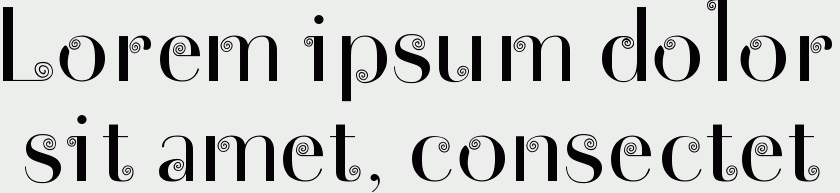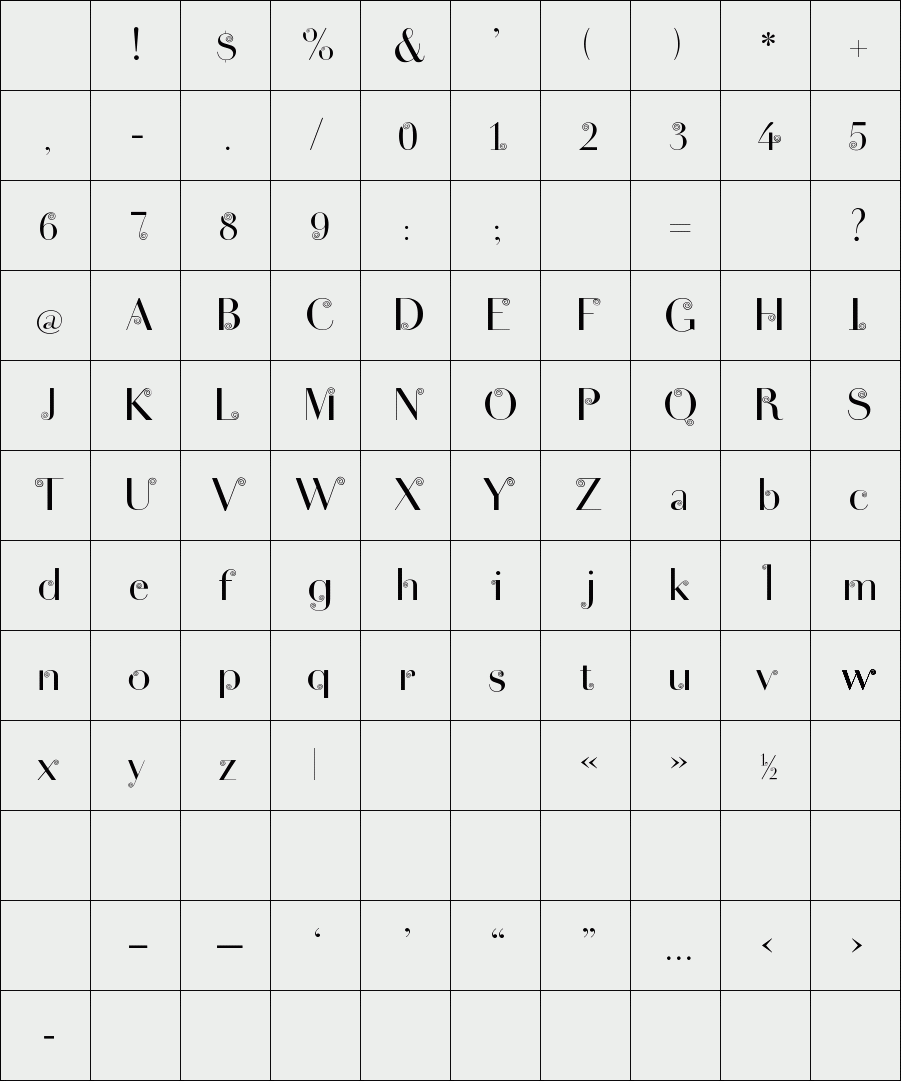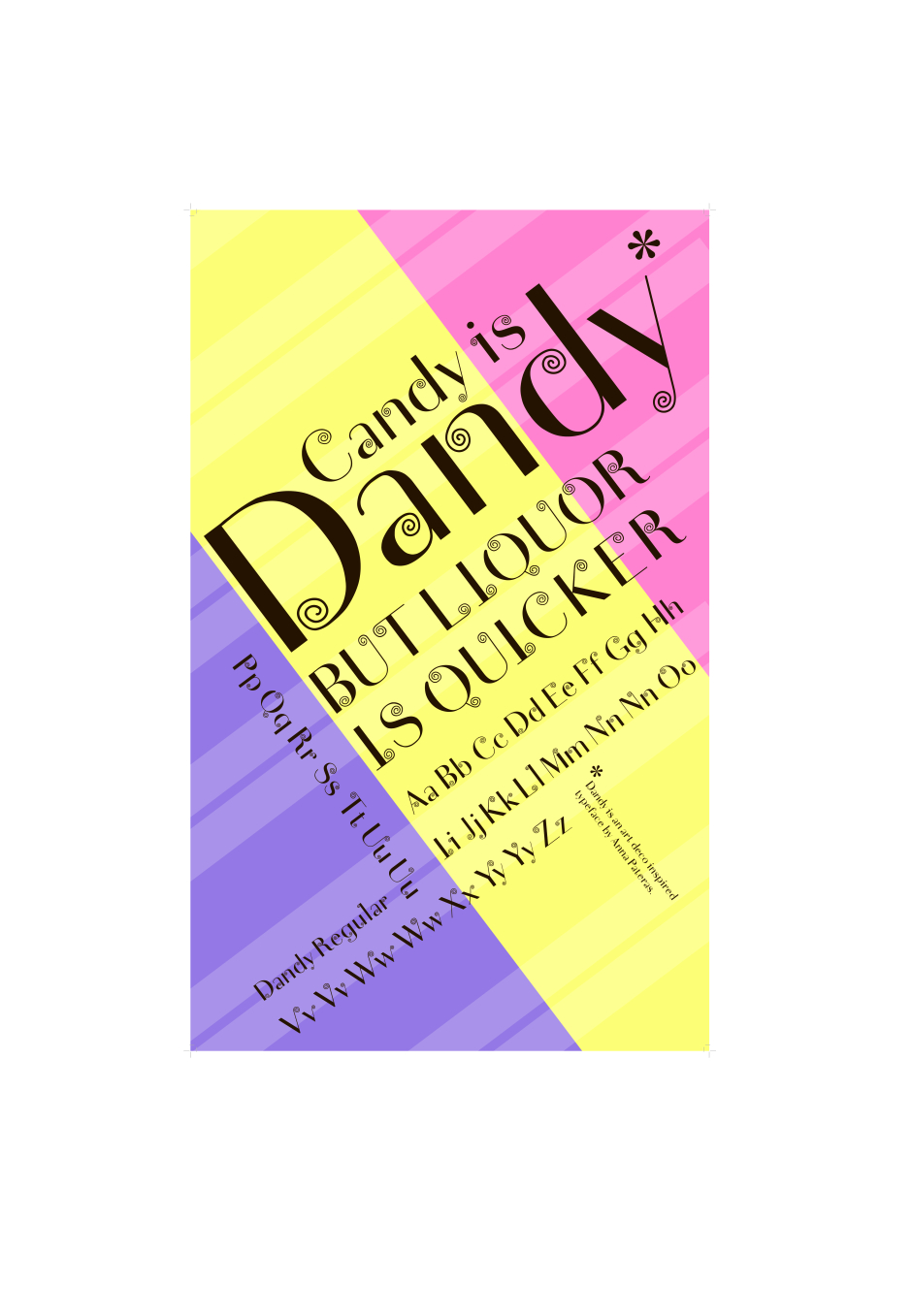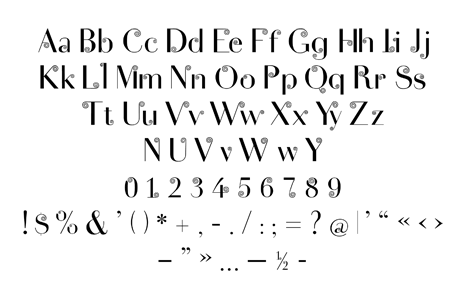
Dandy
Dandy is a contemporary display typeface that combines the dramatic thick/thin strokes seen in Didone typefaces. The serifs are replaced with swirls to give the typeface a more eccentric, art deco inspired look. This typeface has a lot of contrast within each letterform as well when comparing each letter to one another. Alternative characters are available for the capital N, U, V, W, and Y to help with typesetting.